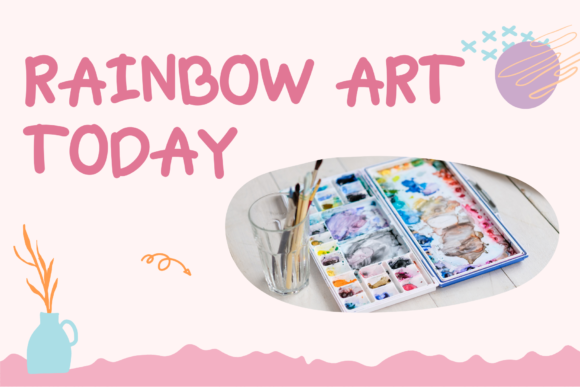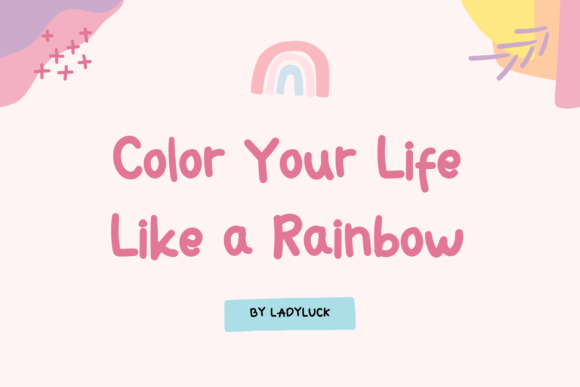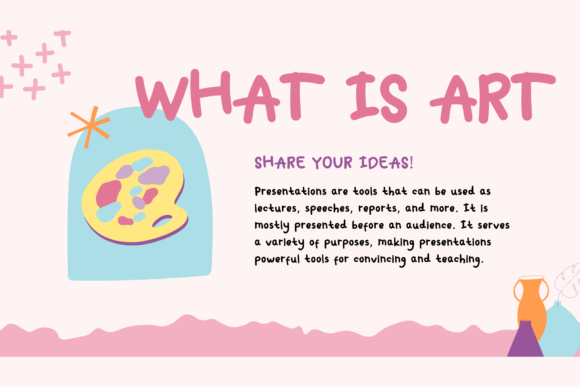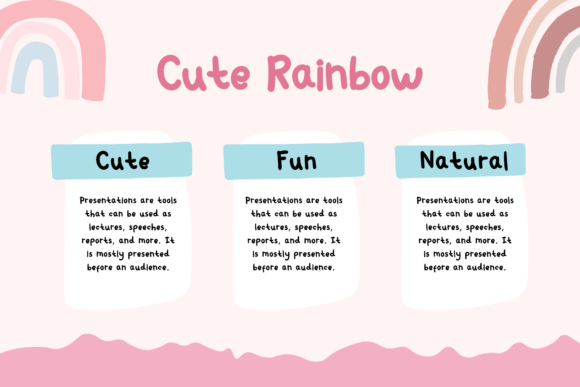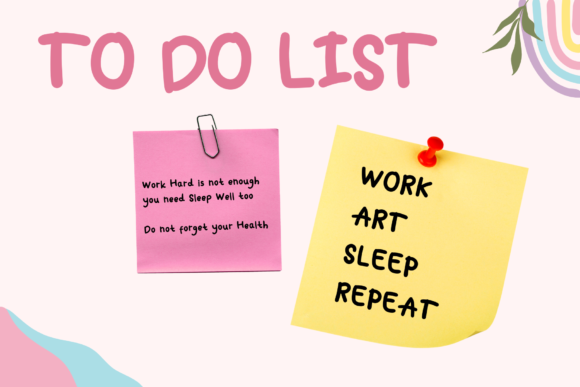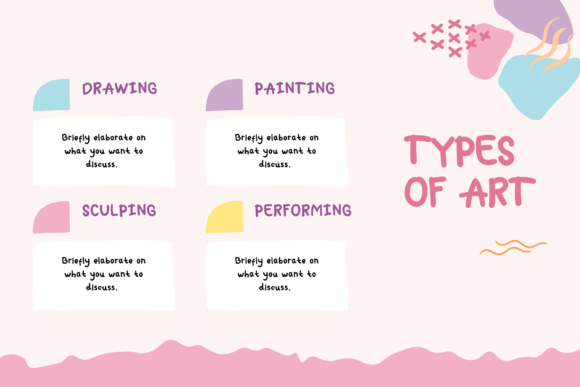
The Cute Rainbow Font: A Charming Addition to Your Design Toolbox
Have you ever been in the middle of working on a design project, and suddenly, you just can’t seem to find the right font? I recall a particularly frustrating moment when I was creating a chalkboard-style poster for a client’s wedding. I wanted a font that was playful, yet elegant; something that would capture the whimsical feel of a handwritten message. That’s when I stumbled upon the Cute Rainbow font, and let me tell you, it was love at first sight! 💕
As a designer, I’m always on the lookout for fonts that can add a personal touch to my projects. Here’s what I think about Cute Rainbow:
- ✨ Authentic Look: Cute Rainbow has an undeniably charming, handwritten feel that makes it perfect for chalkboard quotes, teaching materials, and more.
- ✅ Ease of Use: This font is incredibly easy to read, even at smaller sizes, making it versatile for various design applications.
- 💖 Playful Personality: The Cute Rainbow font exudes a sense of playfulness and fun, making it ideal for projects that require a lighthearted touch.
Now, no font is perfect, and Cute Rainbow does come with a few minor quirks:
- 🤔 Limited Character Set: While the font has a wide range of characters, it might not have every special character or glyph you need. Be sure to check the character set before committing to a project.
- ⚠️ Not Suitable for Body Text: Due to its playful, handwritten nature, Cute Rainbow might not be the best choice for lengthy body text. It’s better suited for headings, titles, or short quotes.
The Story Behind Cute Rainbow
Cute Rainbow was designed with the intention of creating a font that felt both personal and approachable. The designer aimed to craft a font that would evoke the feeling of a handwritten note or a chalkboard quote. With its simple, yet charming letterforms, Cute Rainbow has become a favorite among designers and crafters alike.
| Font Name | Cute Rainbow Font |
| Author | LADYLUCK |
Q: What type of projects is Cute Rainbow best suited for?
A: Cute Rainbow is perfect for projects that require a playful, handwritten feel, such as chalkboard quotes, teaching materials, posters, and social media graphics.